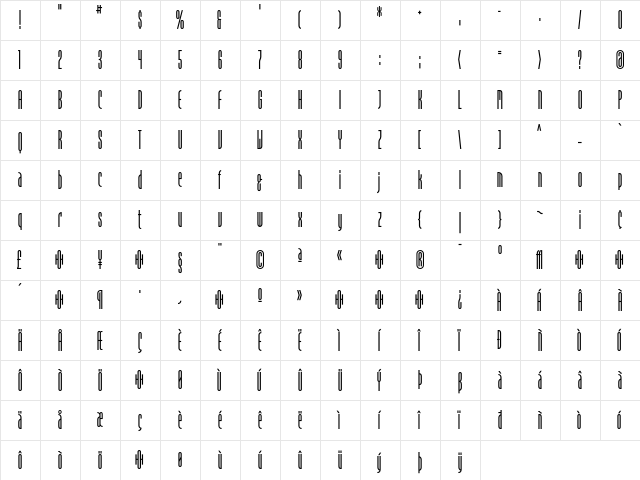
Dome Text
Design Context for Dome Typeface
Dome is a composed and adaptable typeface that performs quietly and consistently across a wide range of design contexts.